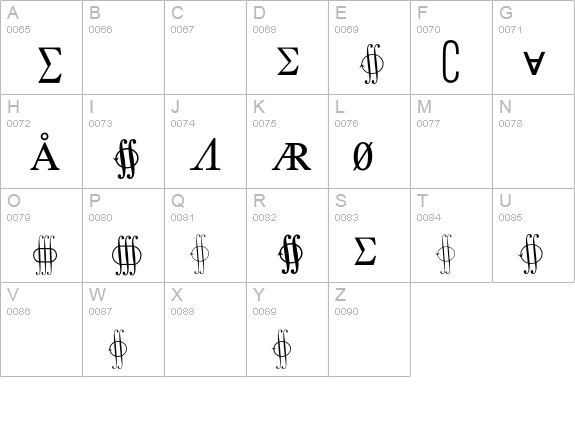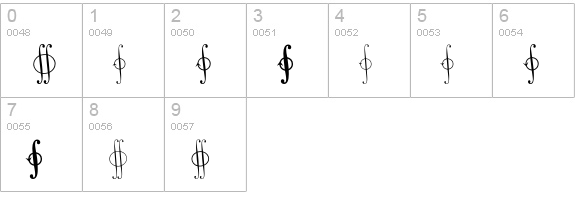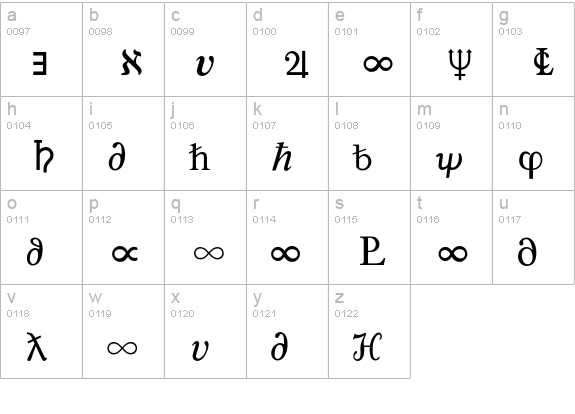
MathTechnicalP09 Font Details
MathTechnicalP09 is a modern and sleek font that is perfect for any mathematical or technical document. With its clean lines and precise letterforms, this font is not only aesthetically pleasing, but also highly functional. It is designed to enhance the readability and clarity of mathematical equations, formulas, and technical symbols. MathTechnicalP09 is a versatile font that can be used in a variety of contexts. Whether you are a student studying advanced mathematics, a researcher working on complex algorithms, or an engineer designing intricate technical diagrams, this font will help you communicate your ideas effectively and professionally. One of the best features of MathTechnicalP09 is that it is available for free. You can easily download this font from FontsMarket.com, a reputable and trusted source for high-quality fonts. By offering this font for free, the creators of MathTechnicalP09 have made it accessible to a wide range of users, regardless of their budget or resources. Furthermore, MathTechnicalP09 is compatible with various software applications, including Microsoft Word, Adobe Photoshop, and LaTeX. This means that you can seamlessly integrate this font into your existing workflow without any hassle. In conclusion, MathTechnicalP09 is a must-have font for anyone working with mathematics or technical documents. Its clean and precise design, combined with its free availability, make it a valuable asset for students, researchers, and professionals alike. Download MathTechnicalP09 today from FontsMarket.com and elevate the quality and clarity of your mathematical and technical content.